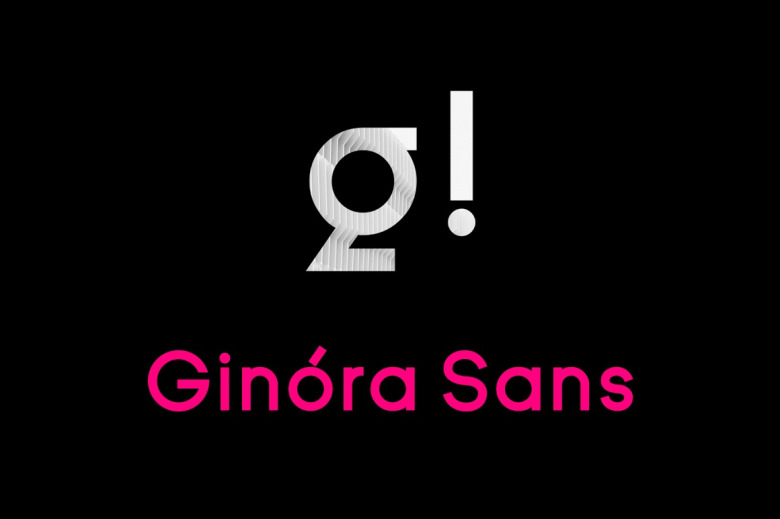
Ginóra Sans Font
Ginóra is a minimal and neat sans serif font. It can easily be matched to an incredibly large set of projects, so add it to your creative ideas and notice how it makes them stand out!
Ginóra Sans Font Family